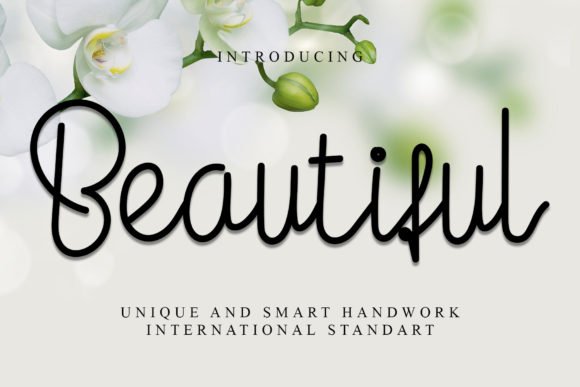
Discover the Perfect Script Font for Your Next Design Project
Have you ever been working on a design project, pouring your heart and soul into every detail, only to feel like something’s missing? Maybe it’s the perfect font to tie everything together. That’s where Beautiful Font comes in – a chic, refined script font that exudes sophistication and elegance.
Beautiful Font is designed to elevate your projects with its stylish alternates and ligatures. Whether you’re creating a luxury brand identity, a wedding invitation, or a beautifully crafted newsletter, this font is sure to impress. As a designer, you know how valuable a versatile and high-quality font can be. Beautiful Font is an essential addition to any design library, offering endless possibilities for creativity and self-expression.
Key Features of Beautiful Font
- Font Family: Beautiful Font is a unique, high-quality font family that includes 12 styles, ranging from Thin to Black, and 6 script styles.
- Unique Characteristics: Beautiful Font features a unique blend of modern and classic elements, with elegant lines and subtle curves that make it perfect for headings, titles, and body text.
- Language Support: Beautiful Font supports over 200 languages, including Latin, Cyrillic, Greek, and many more, making it a great choice for multilingual applications.
Designer Review: Beautiful Font
Overall, I’m really impressed with the Beautiful Font. Here are some of the things that stood out to me: ✨
- Legibility: The font is incredibly easy to read, even at small sizes.
- Customizability: The font comes with a wide range of weights and styles, making it perfect for designing everything from logos to body text.
- Limited language support: While the font supports a wide range of languages, it’s not a true unicode font, which can be a problem for designers working with non-English scripts.
- Not ideal for digital signage: The font’s small x-height makes it less suitable for use in digital signage, where readability at a distance is crucial.
Overall, I’d give Beautiful Font 4.5 out of 5 stars. While it’s not perfect, it’s a versatile and highly legible font that’s perfect for a wide range of design projects.
The Beautiful Font is ideal for:
- Creating eye-catching headings and titles.
- Designing social media posts and ads.
- Creating business cards and brochures.
- Adding a touch of elegance to your website or blog.